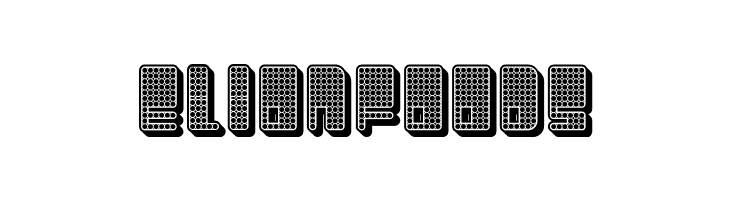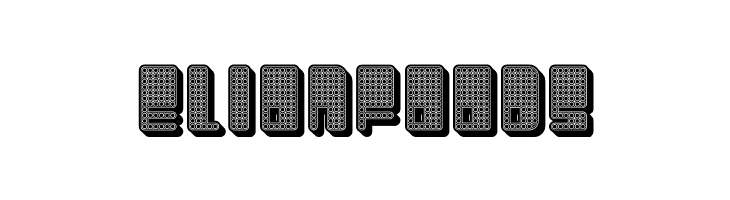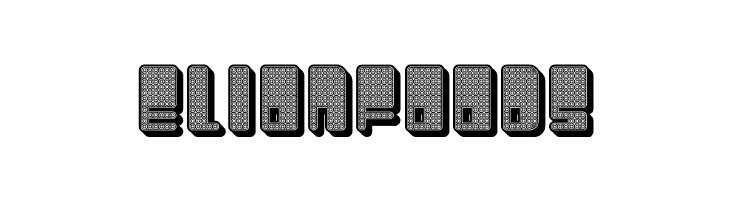
A bold, decorative font with a dotted pattern and thick outlines.
A bold, hollow font with a 3D effect and patterned interiors.
A bold, decorative font with a geometric circle pattern and strong outlines.